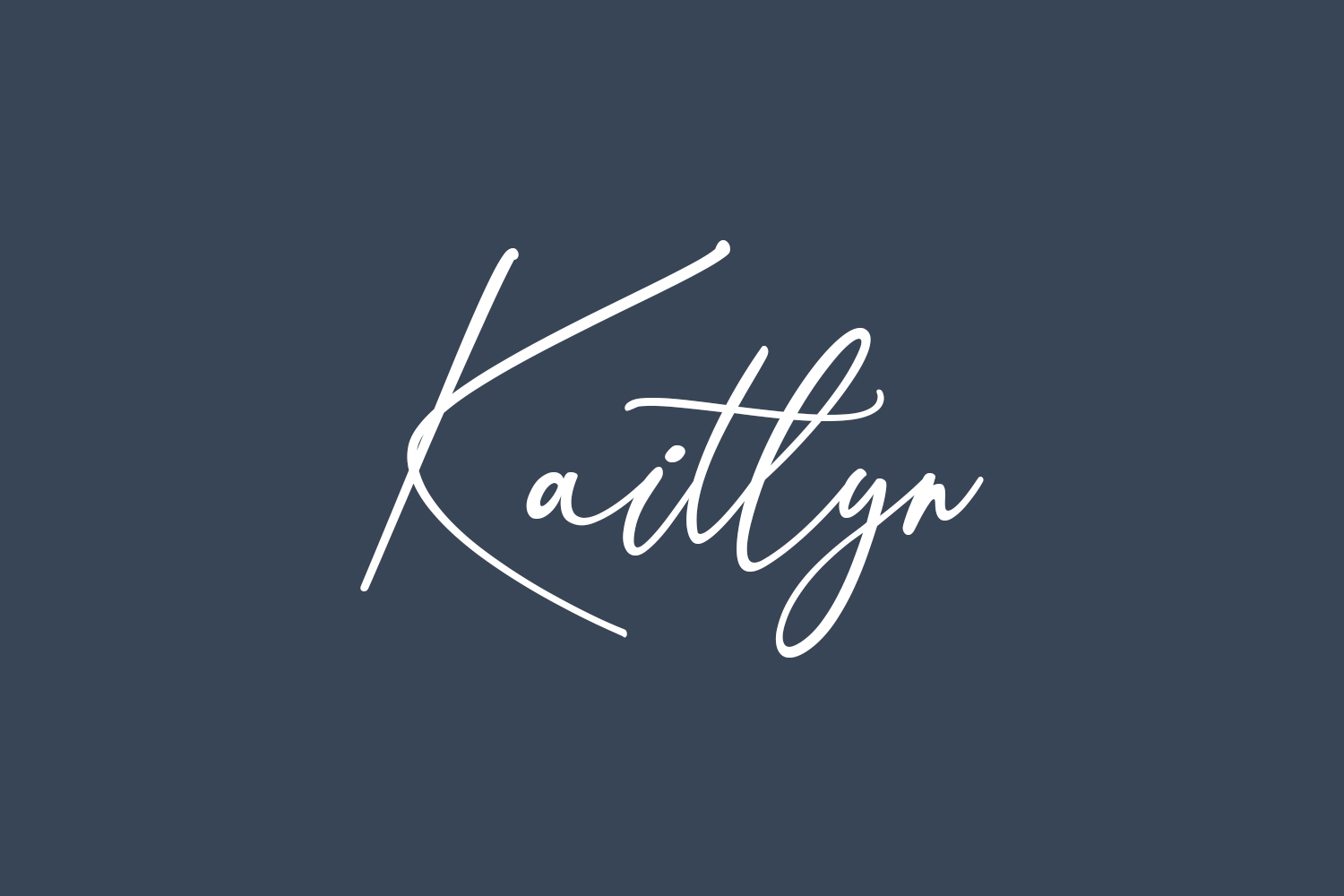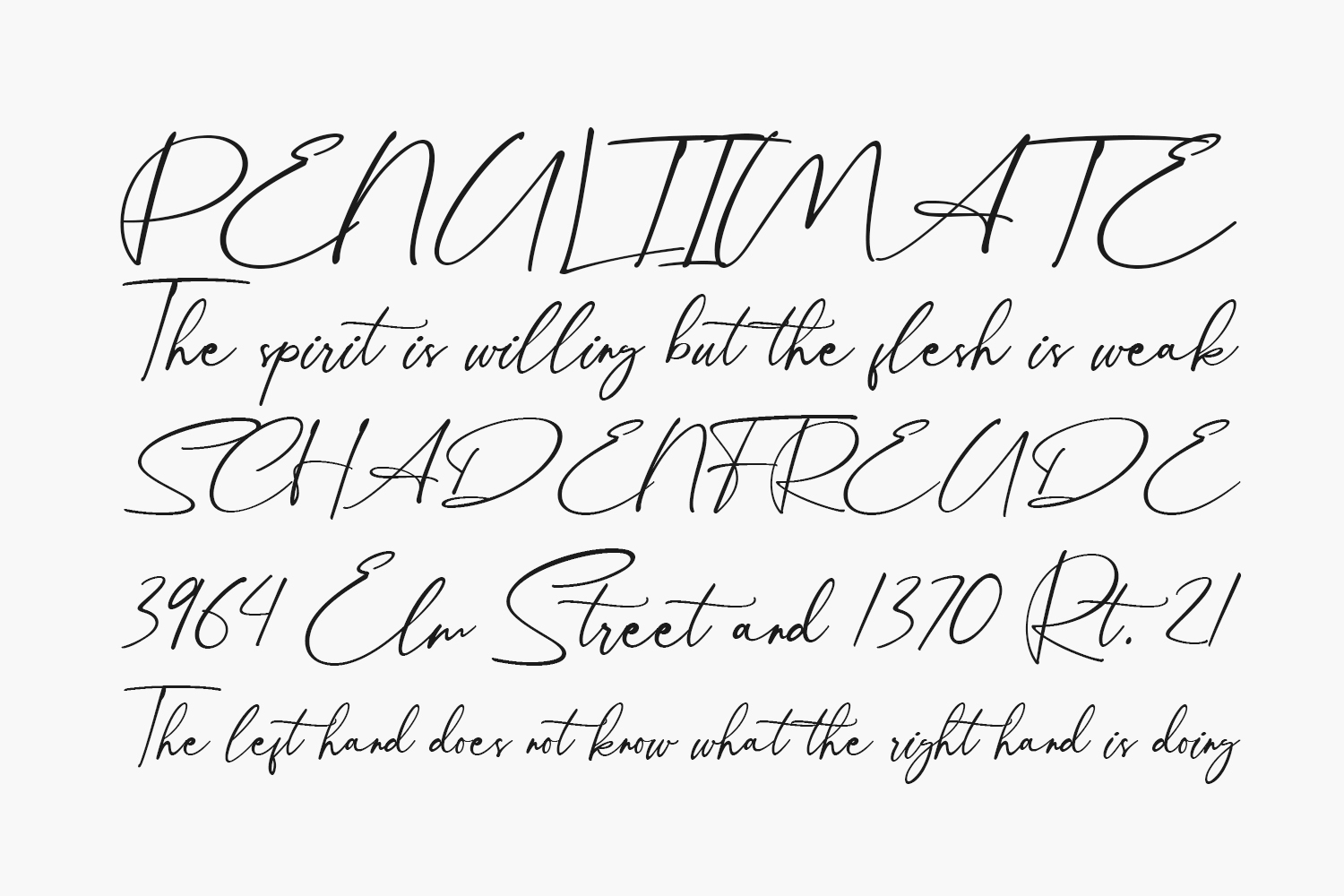
Introducing Kaitlyn Free Font, a contemporary calligraphy font designed to elevate your branding, signatures, wedding invitations, business cards, and beyond. Download the font for free if you need it for personal use or purchase the full version for commercial use.
Designed by Mayofont